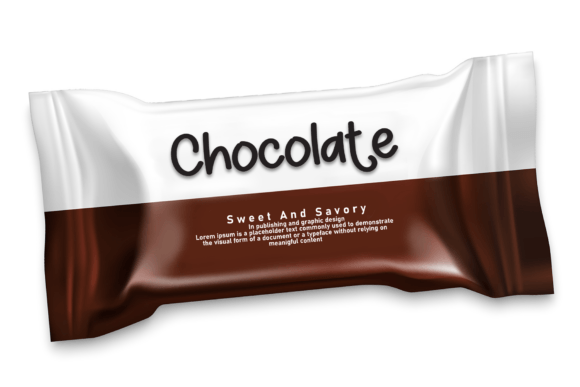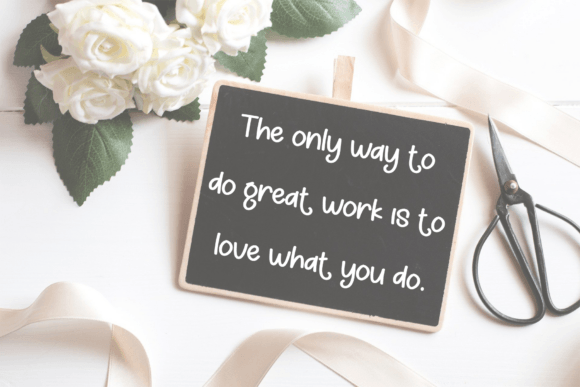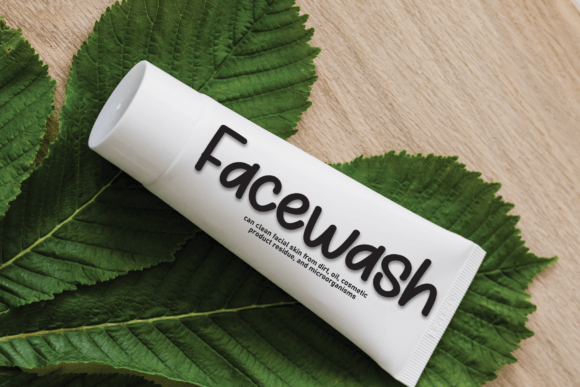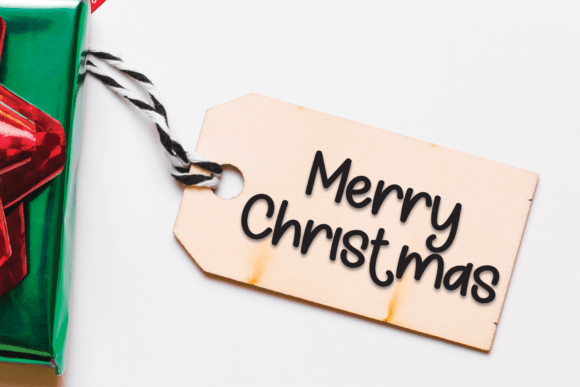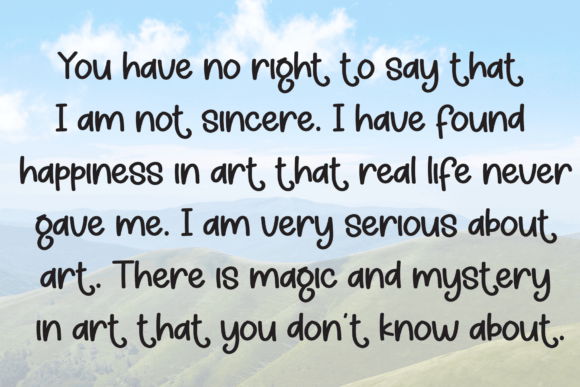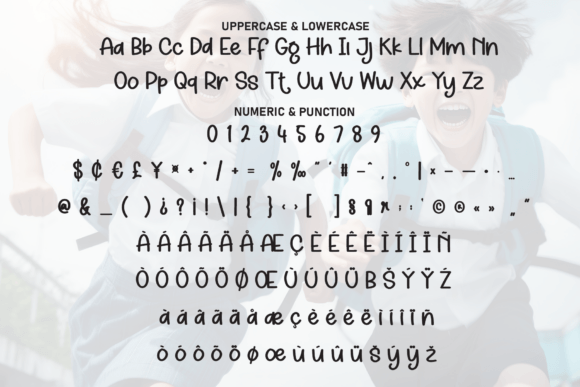
Introducing Happy School Font: The Perfect Blend of Fun and Learning
Are you tired of using traditional fonts that put your readers to sleep? Look no further than Happy School Font, a playful, handwritten font that’s sure to bring a smile to anyone’s face. Designed to capture the joy and creativity of learning, Happy School Font is the perfect addition to any school project, invitation, or fun DIY craft.
The Characteristics of Happy School Font
So, what makes Happy School Font so special? For starters, its friendly letters are easy to read, making it perfect for projects that require a personal touch. The font has a cheerful, relaxed style that gives a warm and inviting feel to your text. Whether you’re a teacher, student, or parent, Happy School Font is sure to bring a sense of excitement and joy to your work.
The Benefits of Using Happy School Font
There are many benefits to using Happy School Font in your projects. For one, it’s a great way to add some personality to your work. Traditional fonts can be boring and overused, but Happy School Font is a breath of fresh air. It’s also versatile, and can be used in a variety of contexts, from school projects to party invitations. Plus, it’s easy to read, making it perfect for projects that require a lot of text.
Happy School Font is a dream come true for designers and crafters. Its playful, handwritten style makes it perfect for a variety of creative projects, from DIY crafts to digital designs. Whether you’re creating a custom sign, party invitation, or educational material, Happy School Font is sure to add a touch of whimsy and fun. Plus, it’s easy to use and pairs well with a variety of other fonts and design elements.
Ideas for Using Happy School Font
So, what can you create with Happy School Font? The possibilities are endless. Here are a few ideas to get you started:
- Custom school projects, such as book reports or science fair labels
- Party invitations, such as birthday or graduation announcements
- DIY crafts, such as handmade cards or gift tags
- Educational materials, such as worksheets or activity sheets
- Custom signs, such as welcome signs or directional signs
Why Choose Happy School Font?
So, why choose Happy School Font over other fonts? For one, its unique and playful style sets it apart from more traditional fonts. It’s also easy to read and versatile, making it perfect for a variety of projects. Plus, it’s a great way to add some personality and whimsy to your work.
In conclusion, Happy School Font is a playful, handwritten font that’s perfect for school projects, invitations, or anything fun. Its friendly letters are easy to read, making it perfect for projects that require a personal touch. With its cheerful, relaxed style, Happy School Font is sure to bring a sense of excitement and joy to your work. So why not give it a try? Download Happy School Font today and start adding a touch of whimsy and fun to your projects.